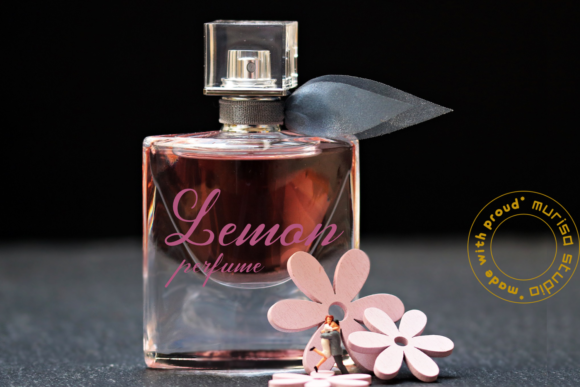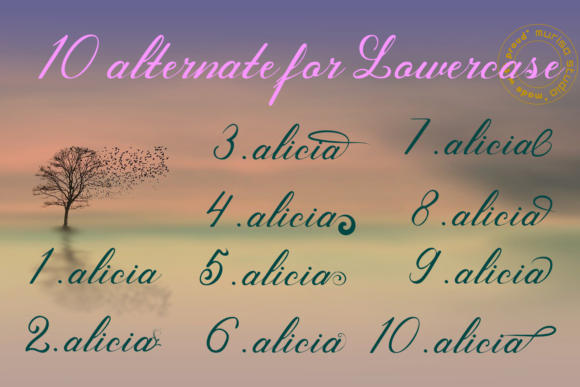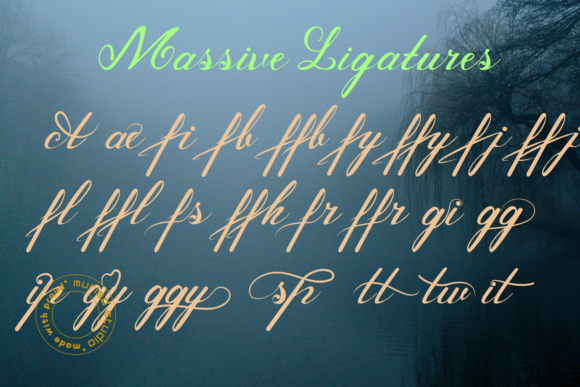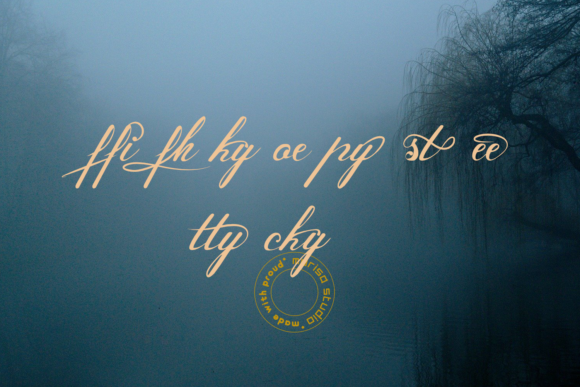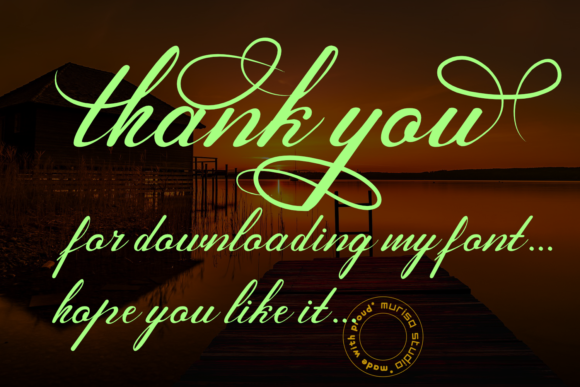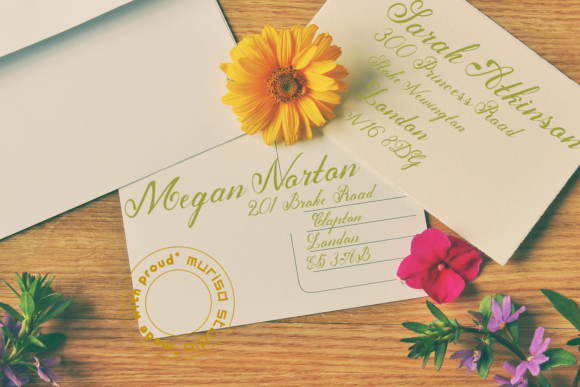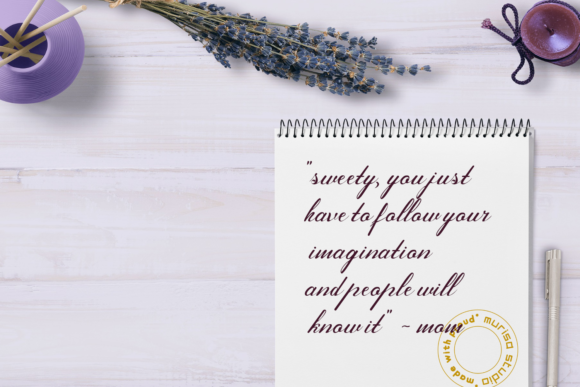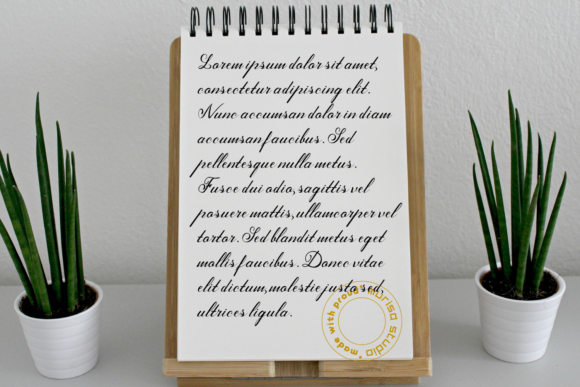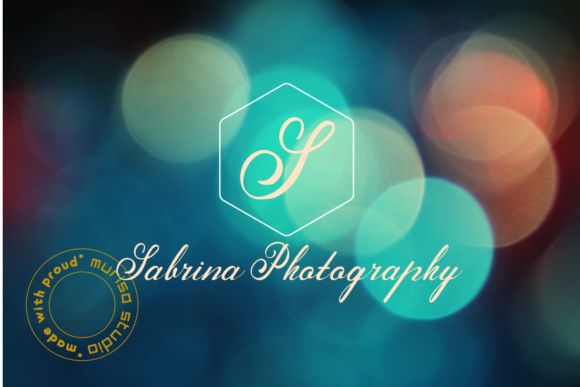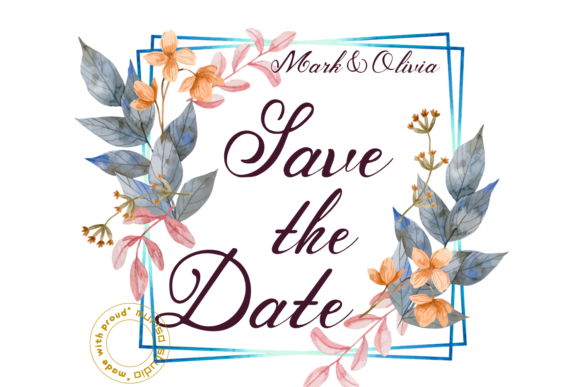
Barbara Font
About Barbara Font
Barbara is a free-flowing script font crafted for diverse design needs such as packaging products, invitation cards, flyers, mockups, event posters, and more, where a touch of high-quality vibes is desired. Designed with fluidity and elegance, Barbara brings a sense of sophistication to your projects.
This font’s free-flowing script style adds a dynamic and artistic flair to your text, making it a versatile choice for various applications. Whether used in digital or print media, Barbara enhances the visual appeal of your content, providing a high-quality aesthetic that resonates with a diverse audience.
An outstanding feature of Barbara is its PUA encoding, allowing easy access to a wide array of glyphs and swashes. This encoding enhances the font’s flexibility, enabling designers to personalize and customize their creations effortlessly. Whether you’re looking to add decorative elements or create a more intricate design, Barbara’s PUA encoding ensures a smooth and enjoyable design experience.
In summary, Barbara transcends being just a font; it’s a design asset that brings a free-flowing, high-quality vibe to your creative projects. With its dynamic script style and PUA encoding, Barbara is ready to enhance your packaging, invitations, flyers, and more, ensuring they stand out with sophistication and artistic charm. Explore the possibilities and let Barbara be the perfect choice for infusing your designs with free-flowing elegance.